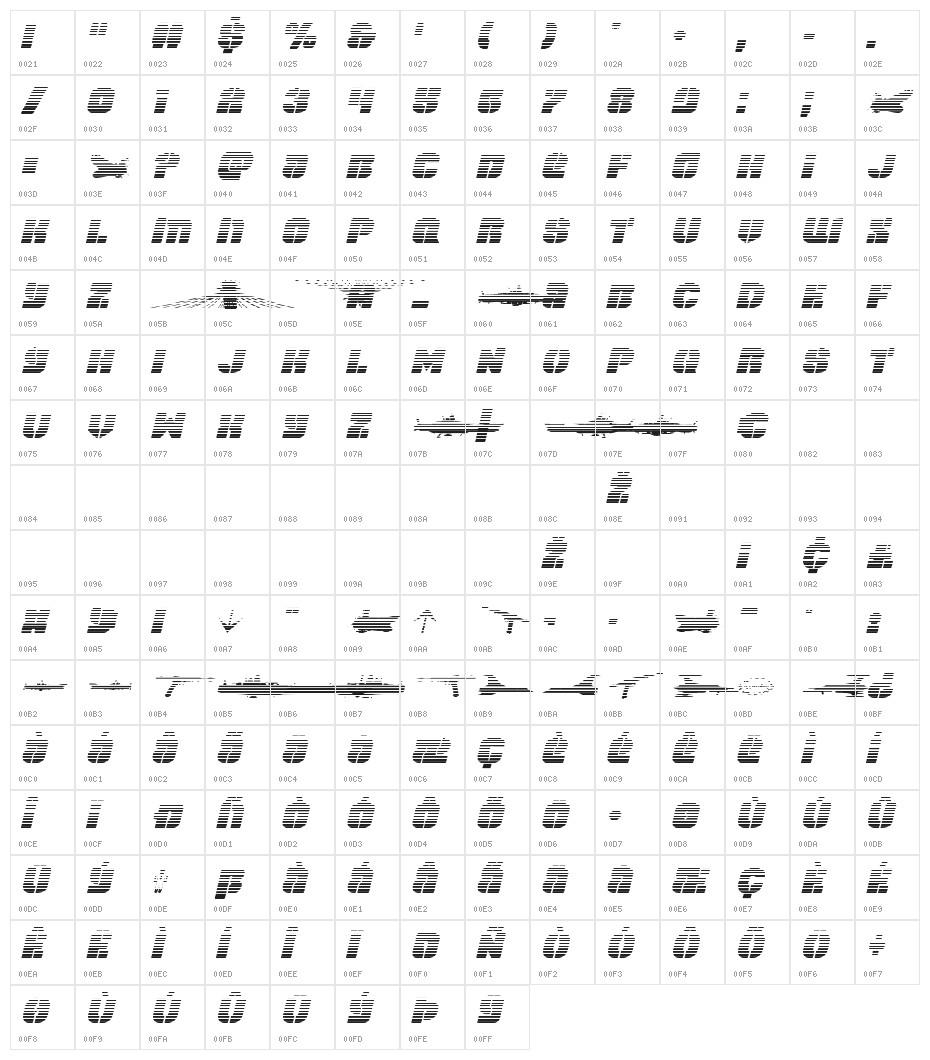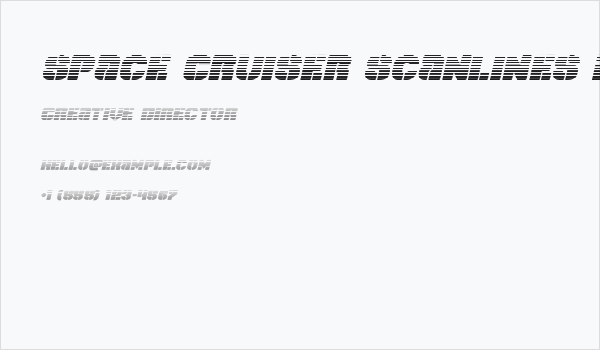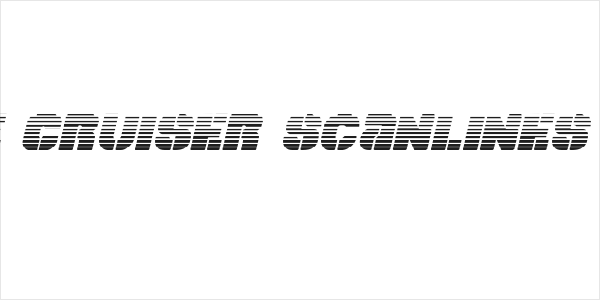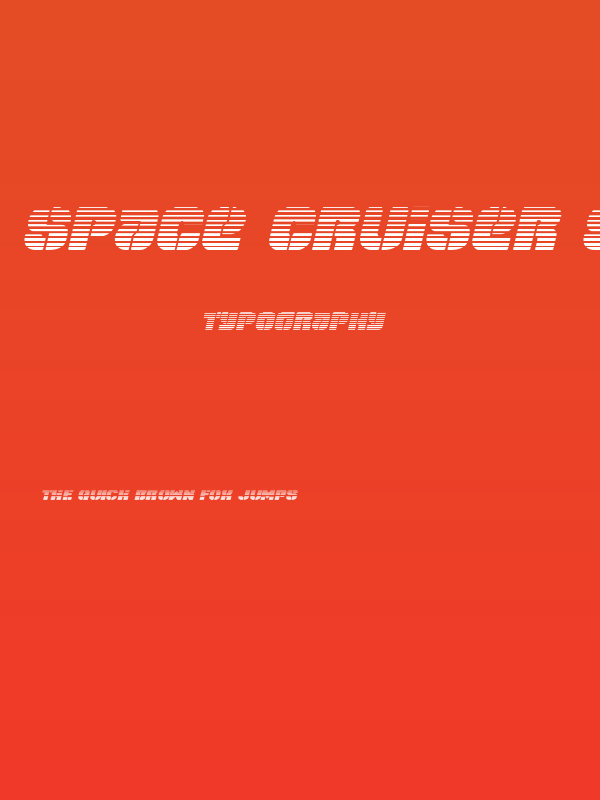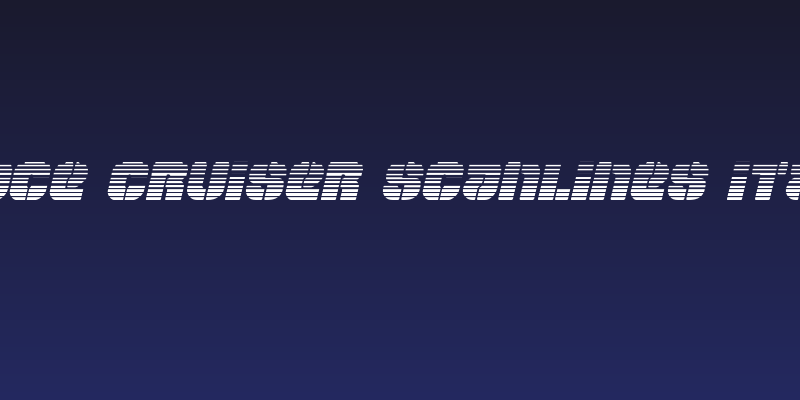
Space Cruiser Scanlines Italic Font
Space Cruiser Scanlines Italic Description
This font features a futuristic and dynamic design with a distinct scanline effect running horizontally through each character. The italicized style adds a sense of motion and speed, making it ideal for projects that require a modern and tech-savvy appearance. The characters are bold and wide, with a consistent line pattern that gives a cohesive look across all letters and numbers. The font's unique style is both eye-catching and readable, making it suitable for various creative applications.
| Proposed Projects | Ideal for sci-fi themed designs, tech branding, video game titles, and futuristic posters. |